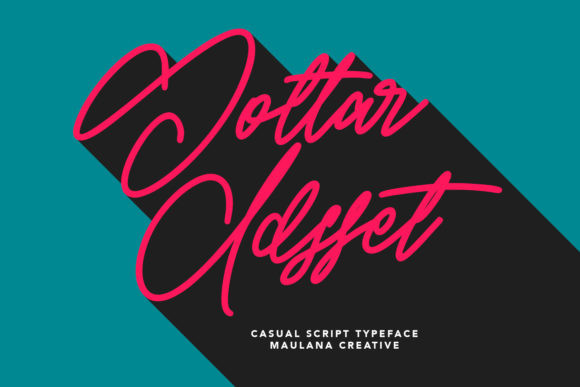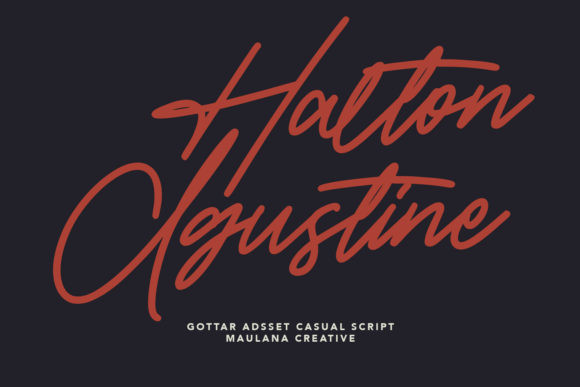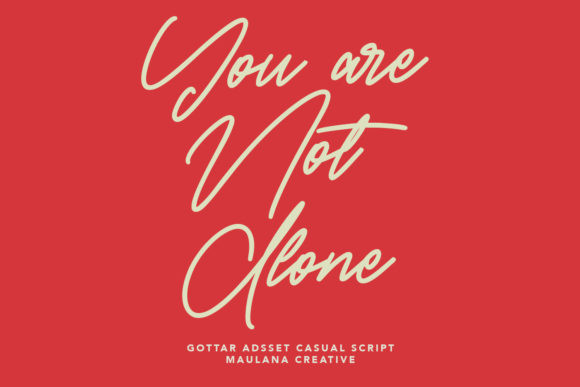
Gottar Adsset Font
Gottar Adsset is an incredibly distinct, delicate and timeless handwritten font. It looks stunning on wedding invitations, thank you cards, quotes, greeting cards, logos, business cards and every other design which needs a handwritten touch.